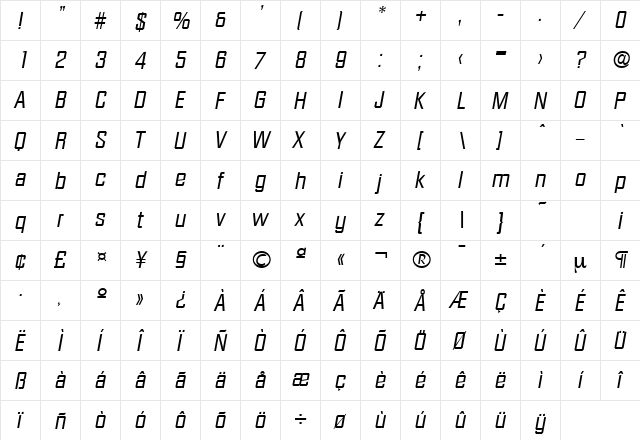
Diamante-Serial RegularItalic Font Preview
Diamante-Serial RegularItalic
Design Context for Diamante-Serial Typeface
Diamante-Serial is a composed and adaptable typeface that performs quietly and consistently across a wide range of design contexts. Its italic angle brings a sense of urgency and motion to the letterforms.
Pro Tip: Try Diamante-Serial for annotation and caption copy alongside an upright companion — the contrast in angle creates a dynamic but ordered typographic system.